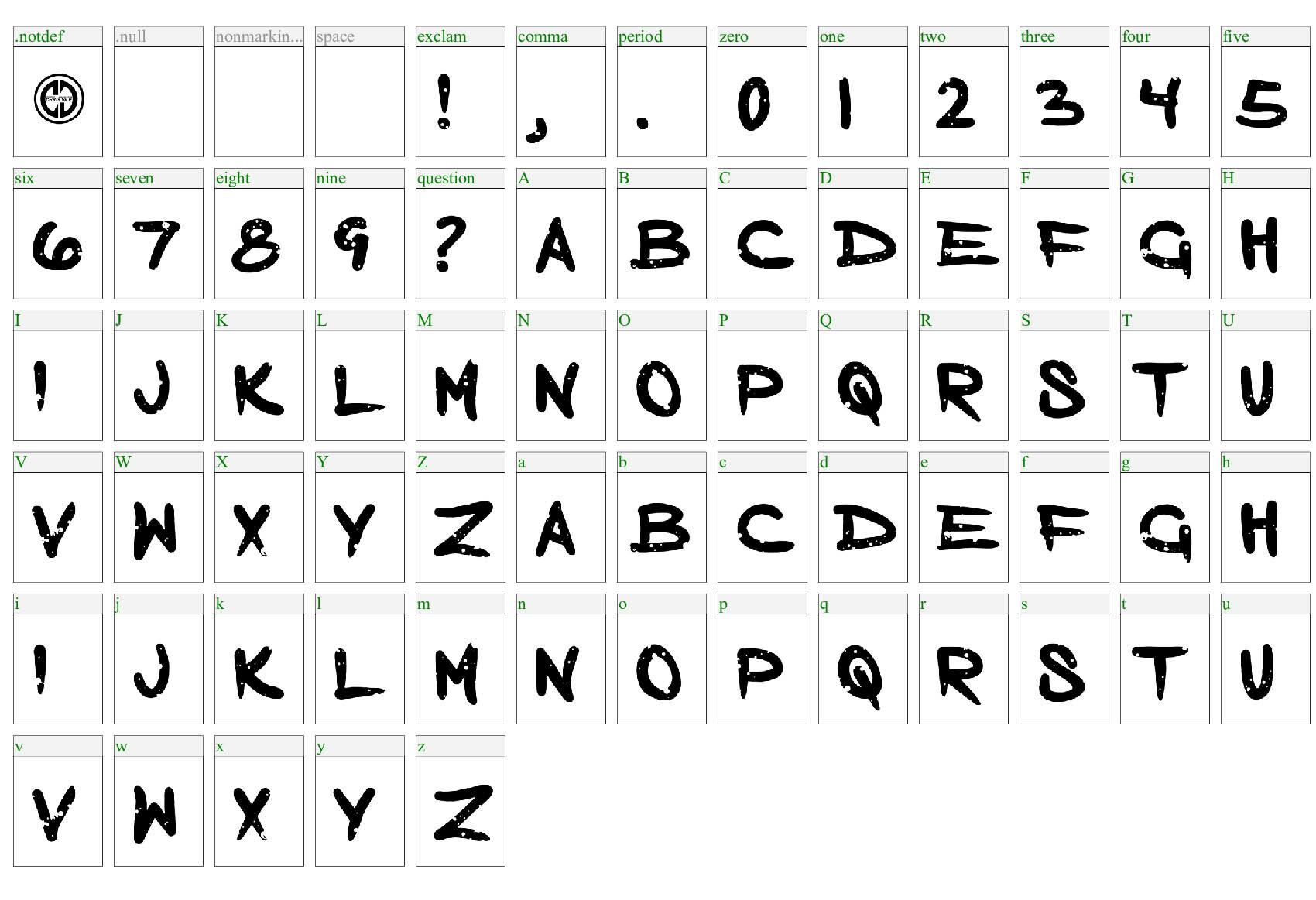
Lowercase: Same as uppercase
Numbers: Yes
Symbols: Question mark, exclamation point, comma and period only available
Accents: No
Theme: Handwritten, eroded, graffiti